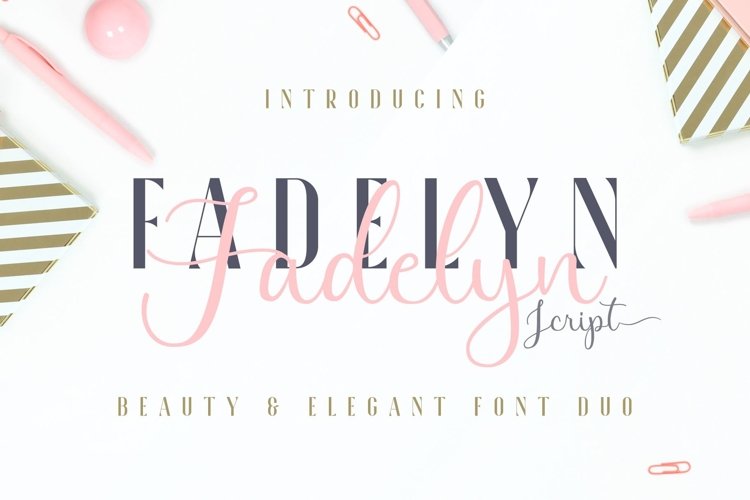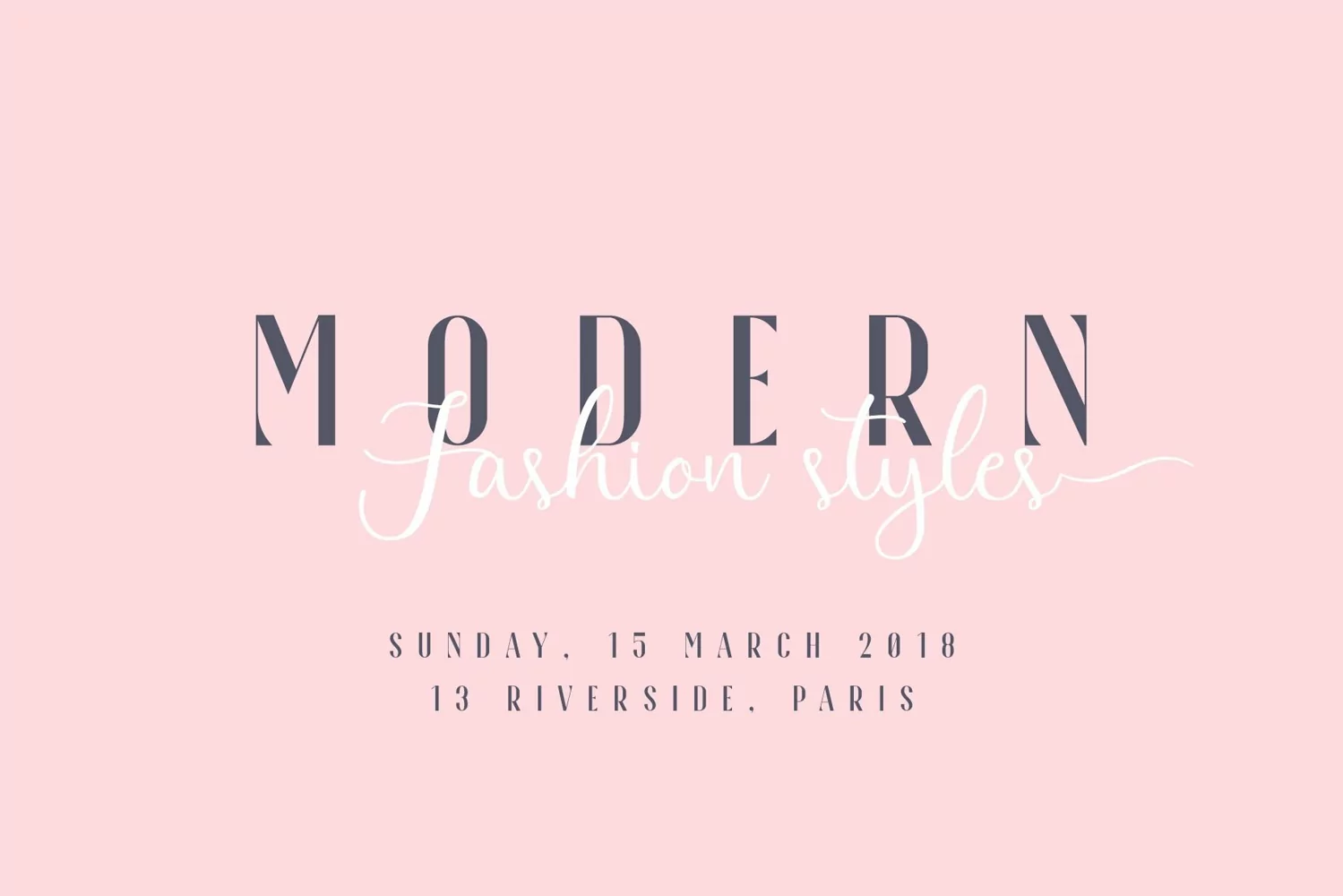
Introducing Fadelyn - Font Duo is a combination of an elegant, luxury, modern sans serif with beautiful handwritten font. It can be used to create almost all types of design projects like print materials, like Wedding card, bussines card, logos, and many more.
You want to make a greeting card or a package design, or even a brand identity, craft design, any DIY project, book title, wedding font, pop vintage design, retro design or any purpose to make your art / design project look pretty and trendy? Feel free to play with this font!